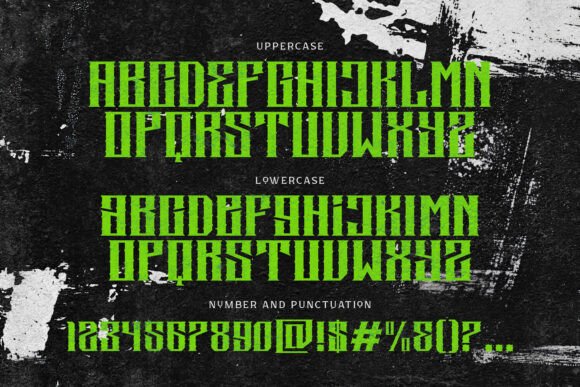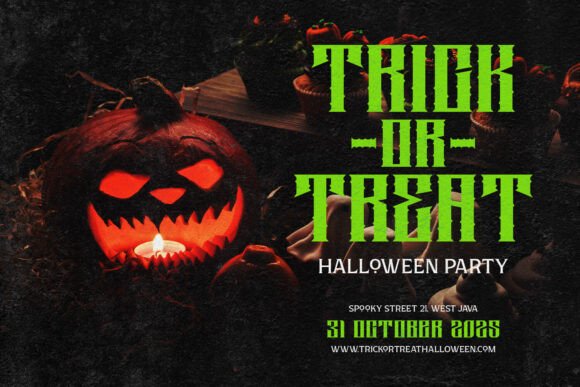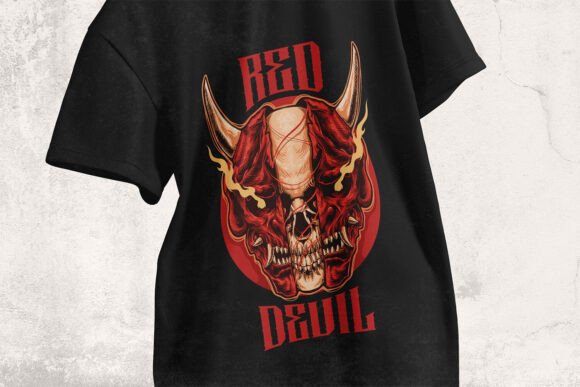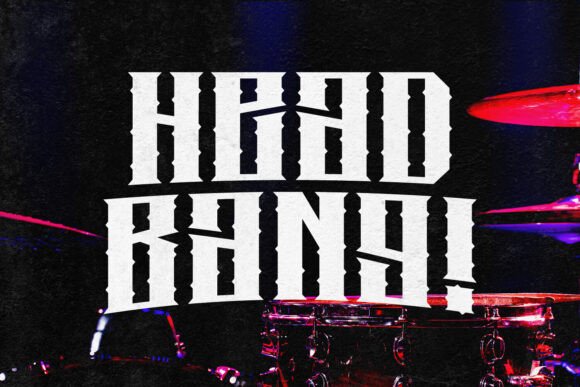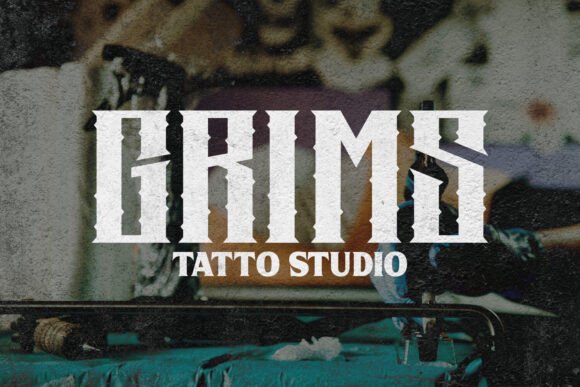
Introduction to Haunted Graves Font
Haunted Graves – Sharp Spiked Font Haunted Graves is a boxy, angular font with sharp, spiked characters that bring a chilling edge to your designs.
Perfect for horror-themed projects, this font creates an atmosphere of fear and suspense Whether it’s for posters, titles, or spooky branding, Haunted Graves is the ideal choice to give your work a menacing, haunted feel.
Key Features of Haunted Graves Font